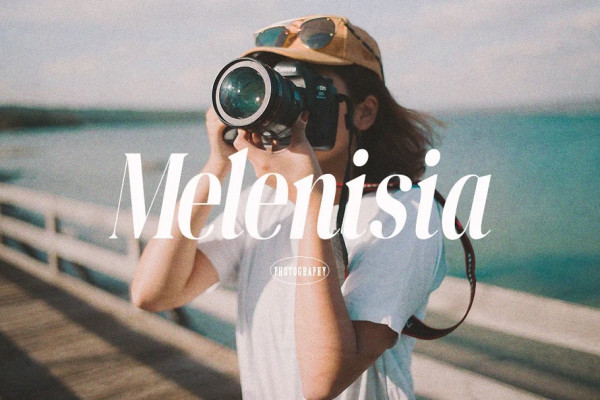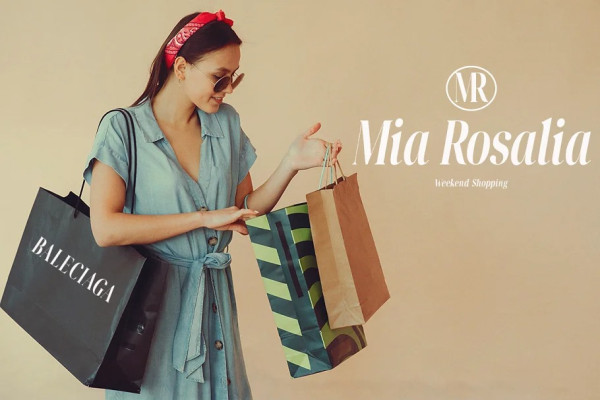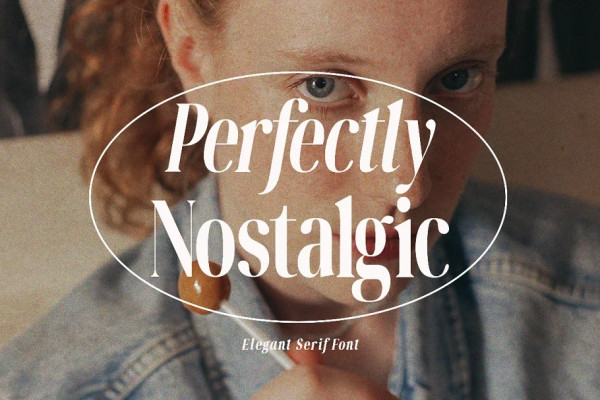
Perfectly Nostalgic Font
Perfectly Nostalgic Font is an elegant serif + font family. It a great choice for stylish designs This font is perfect for branding, logos, social media, prints, stickers, shirts, books, magazines, and Font family includes 12 different weights, uppercase, lowercase, punctuation and multilingual support.